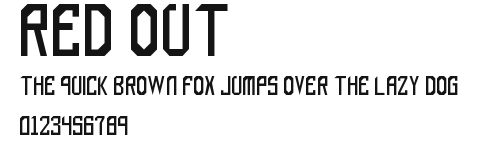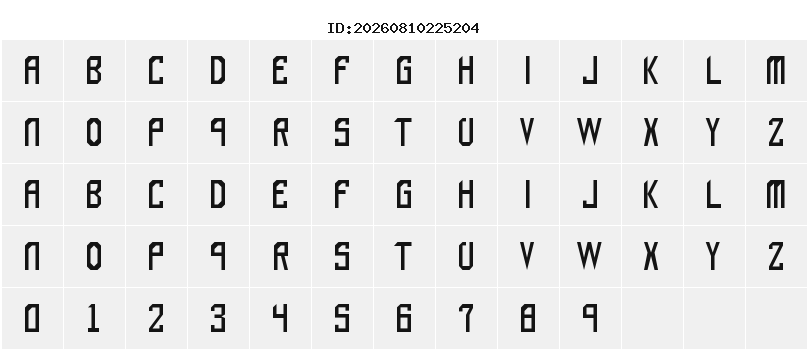
• Font Name: red out
• Full Font Name: red out
• Designer: Luis Jaramillo
• Manufacturer: LJ-Design Studios
About red out.ttf
red out.ttf is a modern, elegant sans-serif font designed for ultimate readability and visual harmony. Perfect for branding, headlines, web design, and print materials.